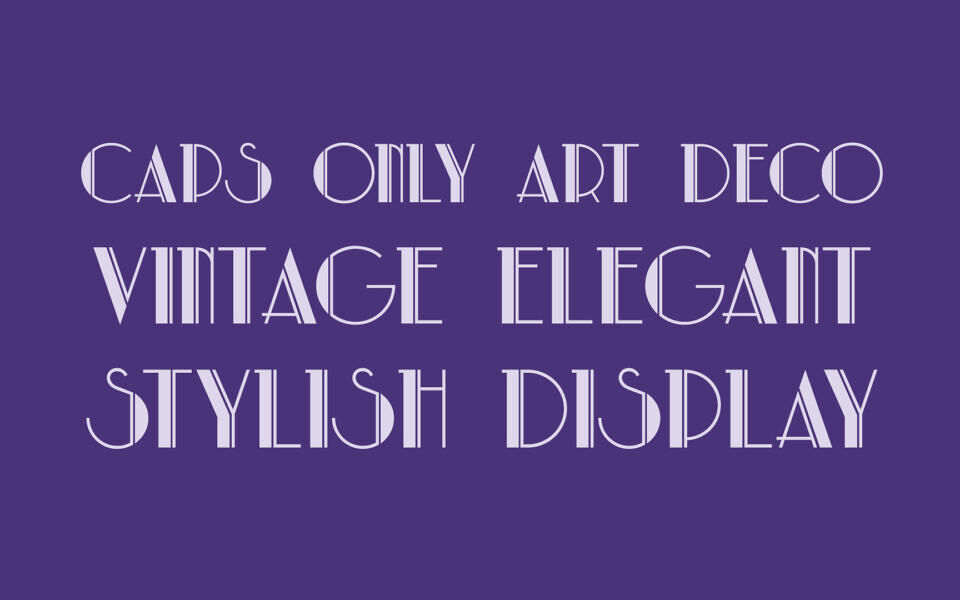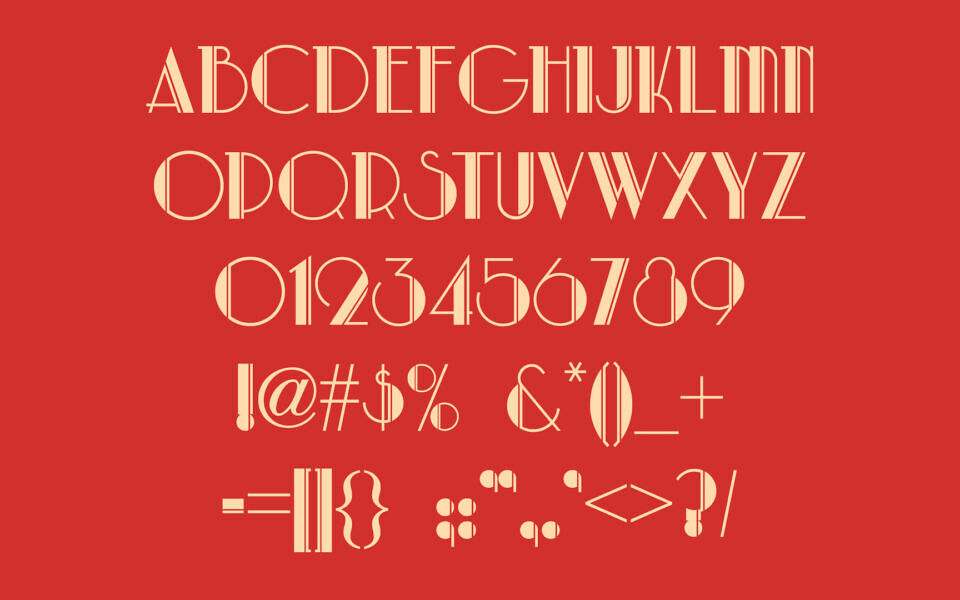
Park Lane NF Font
Designed by Nick Curtis of Nick’s Fonts, Park Lane NF is an elegant, all-caps Art Deco typeface that beautifully captures the vintage aesthetic of the 1920s. It features a sophisticated bi-linear concept with striking contrast between its thick and thin strokes.
Its upscale, Great Gatsby-esque vibe makes it an ideal choice for luxury branding, fancy headlines, retro invitations, and designs requiring a touch of classic, urbane sophistication.